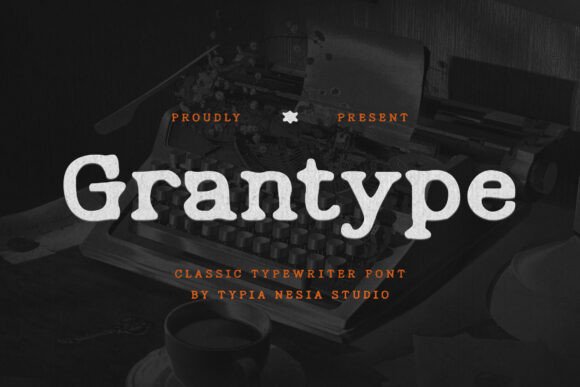
Grantype Font: A Timeless Classic Typewriter Font for Modern Design
Are you looking for a font that brings the charm of vintage typewriters to your modern design projects? Look no further than Grantype, a classic typewriter font that captures the nostalgic feel of old-school typing while maintaining versatility for any project. In this article, we’ll explore the features and benefits of Grantype, and how it can elevate your designs with its unique blend of tradition and modern usability.
What is Grantype Font?
Grantype is a carefully crafted typewriter font that embodies the spirit of vintage typewriters. With its clean and authentic letterforms, Grantype is the perfect choice for designers who appreciate the aesthetic of classic typing. Whether you’re working on branding, editorial projects, retro-themed designs, stationery, logo design, book covers, vintage posters, newspapers, magazines, social media graphics, or any other project, Grantype is the ideal font to add a touch of nostalgia and sophistication.
Key Features of Grantype Font
- Complete set of uppercase and lowercase letters: Grantype comes with a comprehensive set of letters, ensuring that you have all the characters you need to create stunning designs.
- Punctuation and numerals: The font includes a range of punctuation marks and numerals, making it perfect for creating professional-looking designs.
- Multilingual support: With multilingual support, Grantype seamlessly adapts to global audiences, making it an excellent choice for international projects.
- Clean and authentic letterforms: The font’s clean and authentic letterforms evoke the nostalgic feel of old-school typing, adding a touch of vintage charm to your designs.
- Versatile and adaptable: Grantype is designed to be versatile and adaptable, making it suitable for a wide range of projects and applications.
The Benefits of Using Grantype Font
So, why choose Grantype font for your design projects? Here are just a few benefits of using this amazing font:
- Adds a touch of nostalgia: Grantype’s vintage charm adds a touch of nostalgia to your designs, making them stand out from the crowd.
- Perfect for retro-themed designs: If you’re working on a retro-themed project, Grantype is the perfect font to evoke the spirit of the past.
- Sophisticated and elegant: Despite its vintage roots, Grantype is a sophisticated and elegant font that’s perfect for high-end designs.
- Easy to read: The font’s clean and authentic letterforms make it easy to read, even in small sizes.
- Multilingual support: With multilingual support, you can use Grantype for projects that require multiple languages.
How to Use Grantype Font in Your Designs
Using Grantype font in your designs is easy. Here are a few tips to get you started:
- Pair it with other fonts: Grantype pairs well with other fonts, so feel free to experiment with different combinations to create unique and interesting designs.
- Use it for headlines and body text: Grantype is suitable for both headlines and body text, making it a versatile font for a wide range of projects.
- Experiment with different colors: The font’s vintage charm looks great in a range of colors, from bold and bright to muted and pastel.
- Use it for branding and identity: Grantype is perfect for branding and identity projects, adding a touch of nostalgia and sophistication to your designs.
In conclusion, Grantype font is a timeless classic typewriter font that brings the charm of vintage typewriters to the modern design world. With its clean and authentic letterforms, complete set of uppercase and lowercase letters, punctuation, numerals, and multilingual support, Grantype is the perfect choice for designers who appreciate the aesthetic of vintage typewriters. Whether you’re working on branding, editorial projects, retro-themed designs, stationery, logo design, book covers, vintage posters, newspapers, magazines, social media graphics, or any other project, Grantype is the ideal font to add a touch of nostalgia and sophistication.
- What is Grantype font?: Grantype is a classic typewriter font that captures the nostalgic feel of old-school typing while maintaining versatility for any project.
- What languages does Grantype support?: Grantype has multilingual support, making it suitable for international projects.
- Is Grantype easy to read?: Yes, Grantype’s clean and authentic letterforms make it easy to read, even in small sizes.